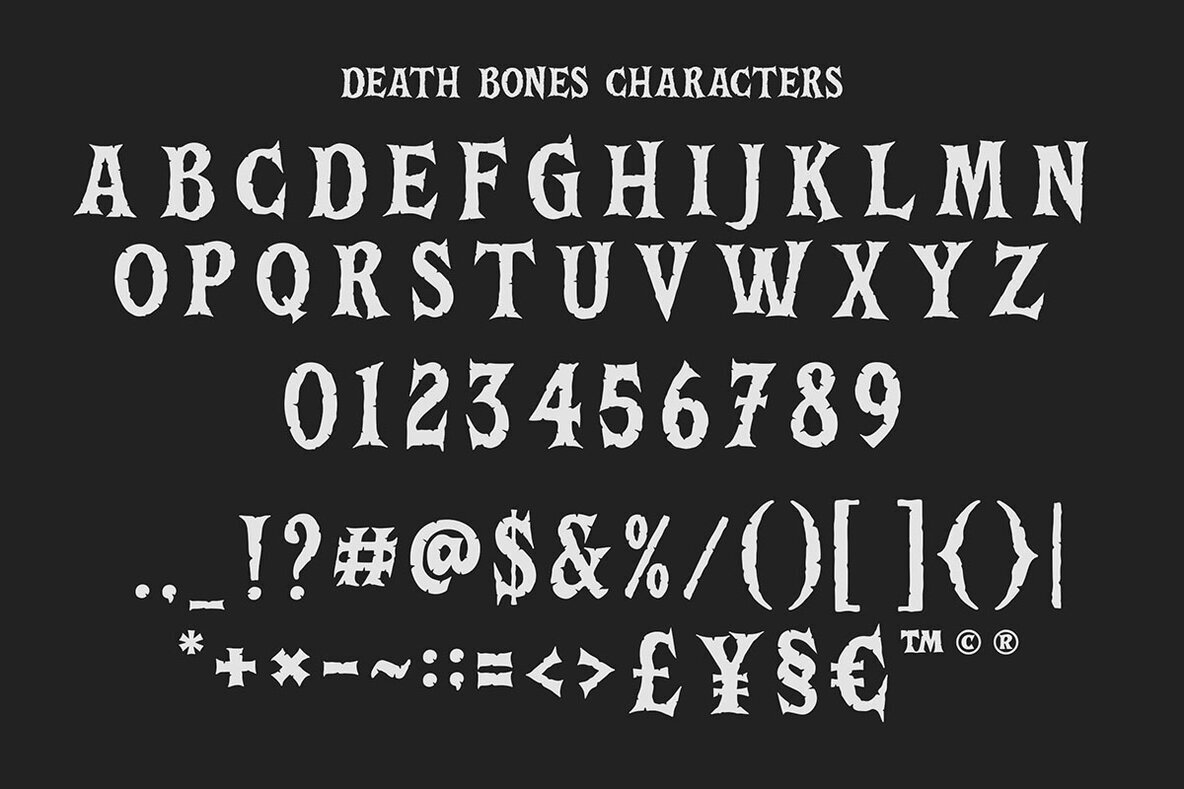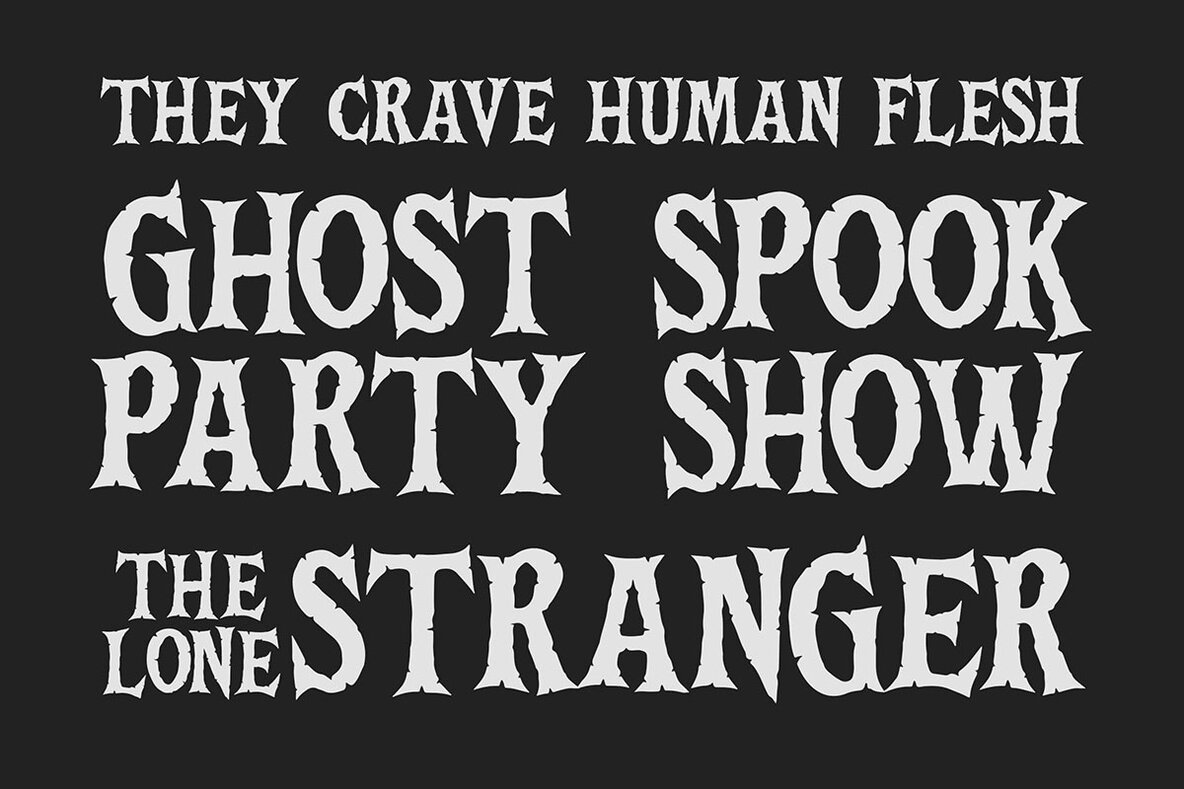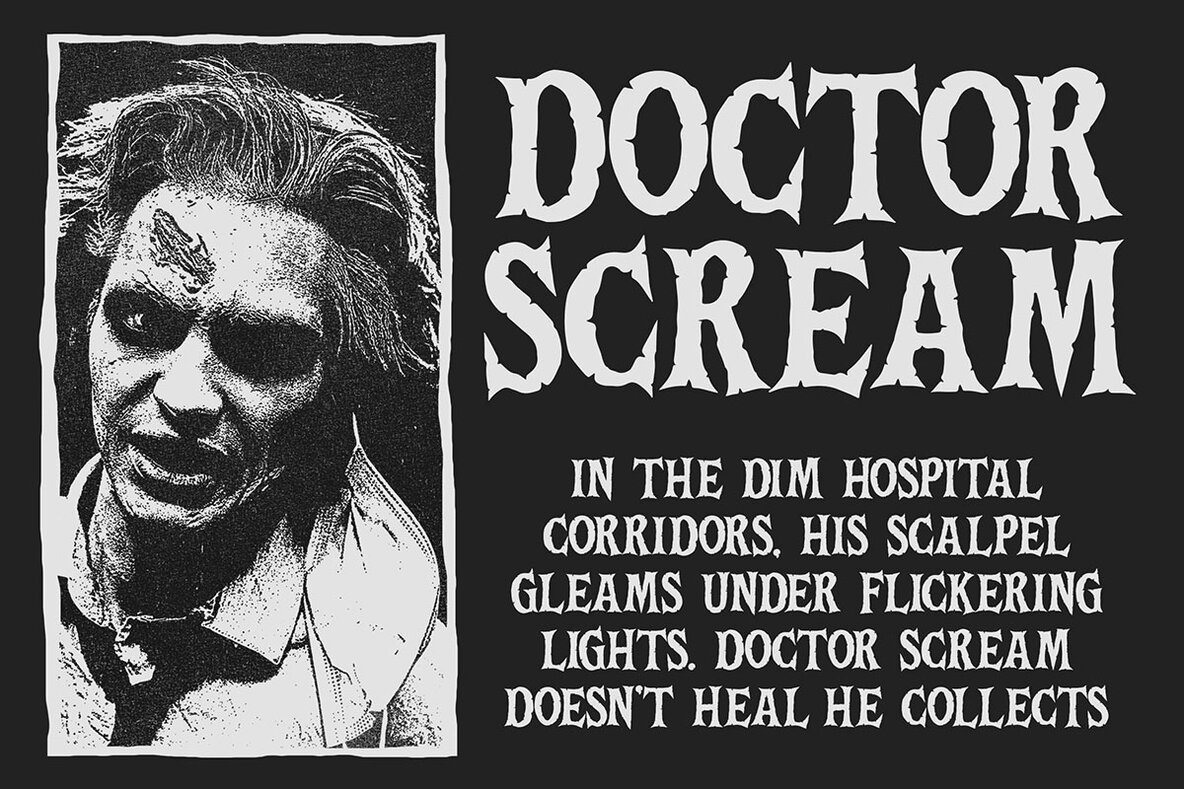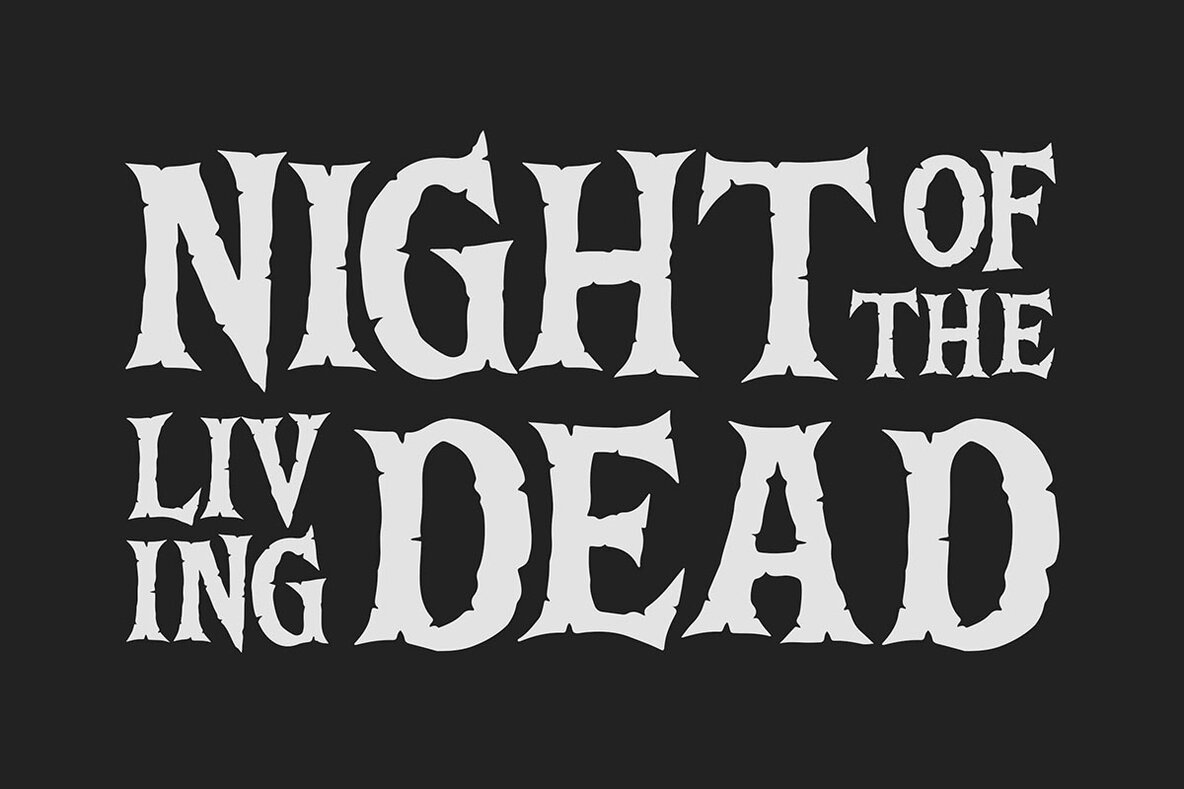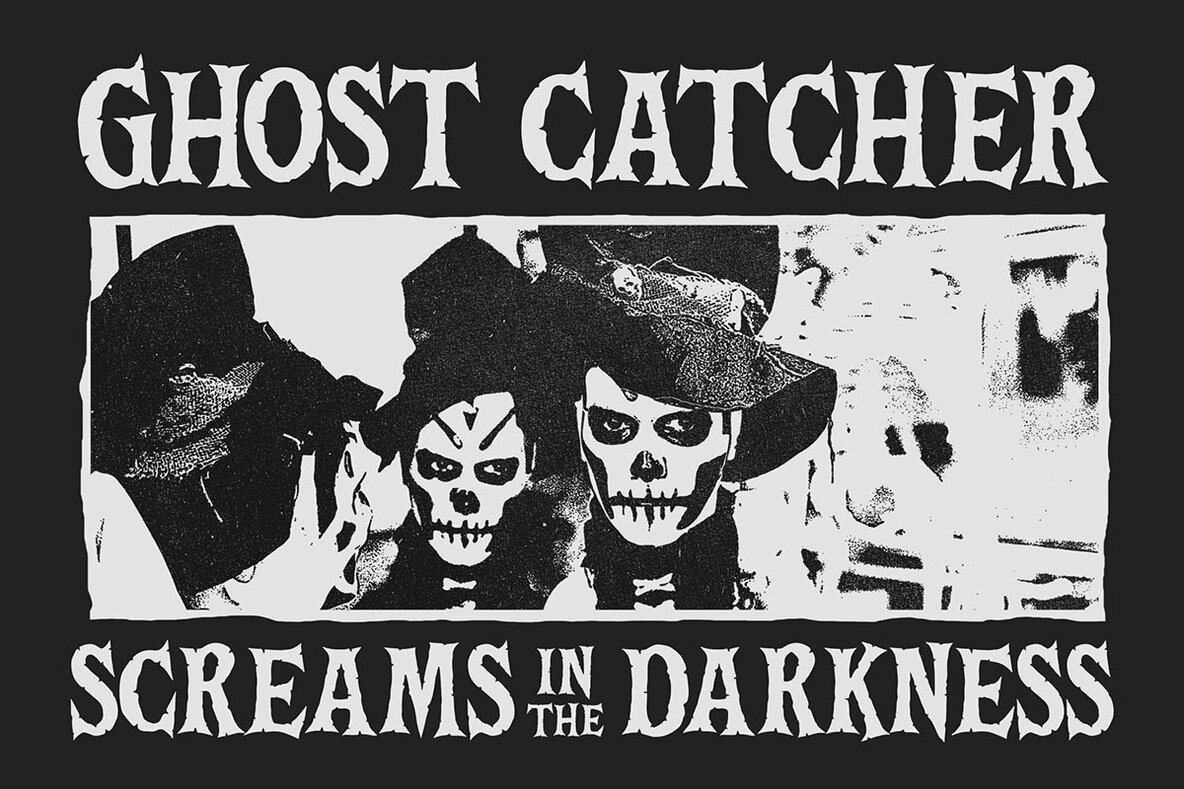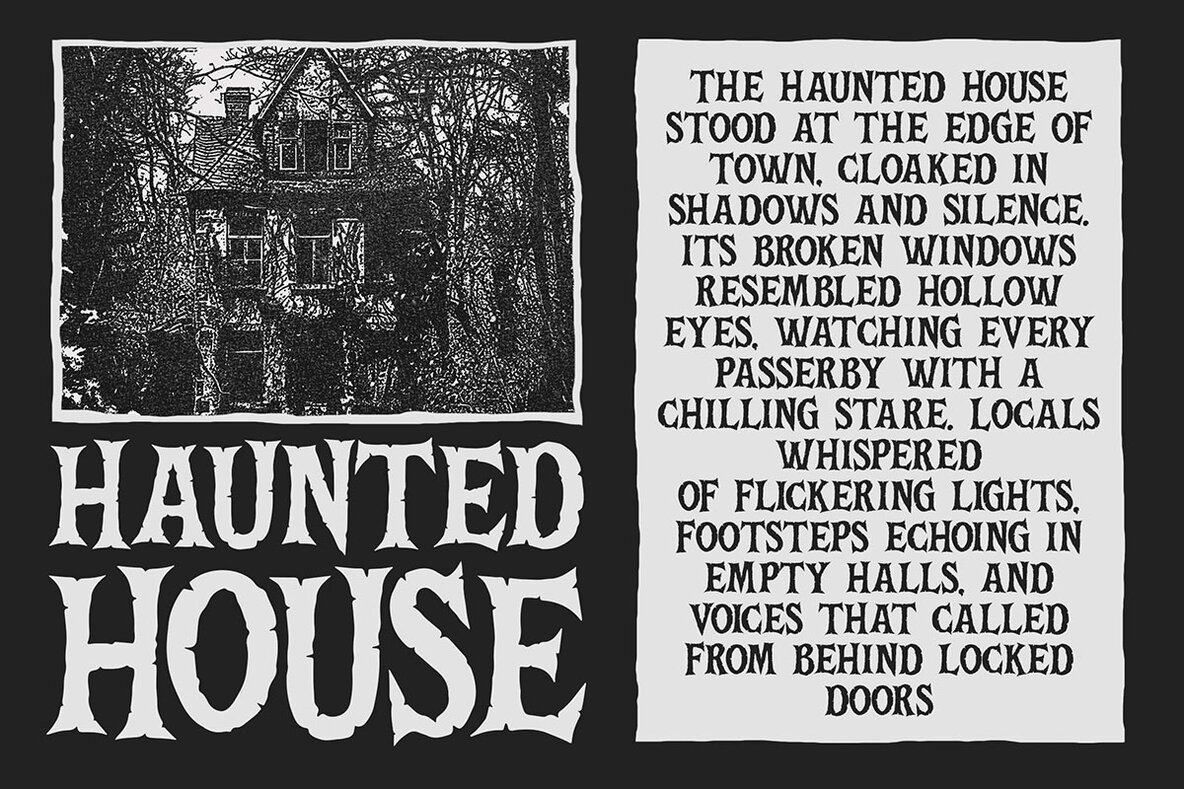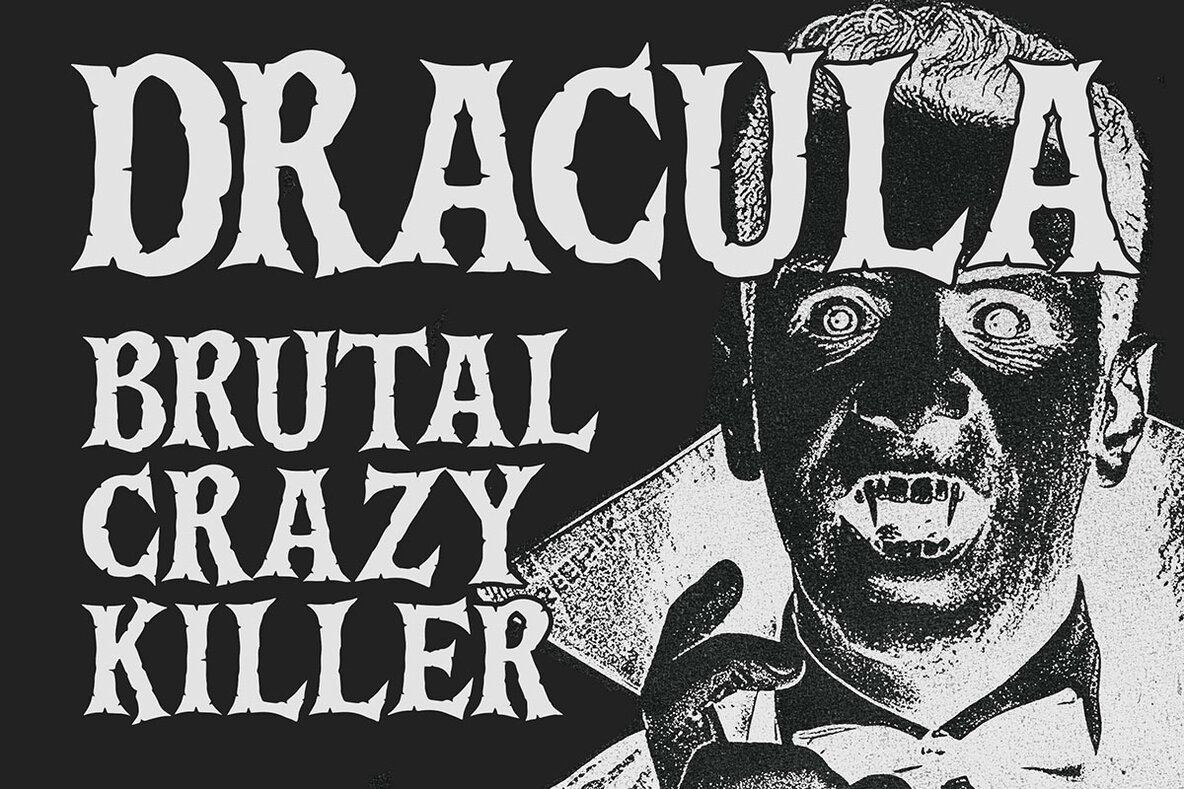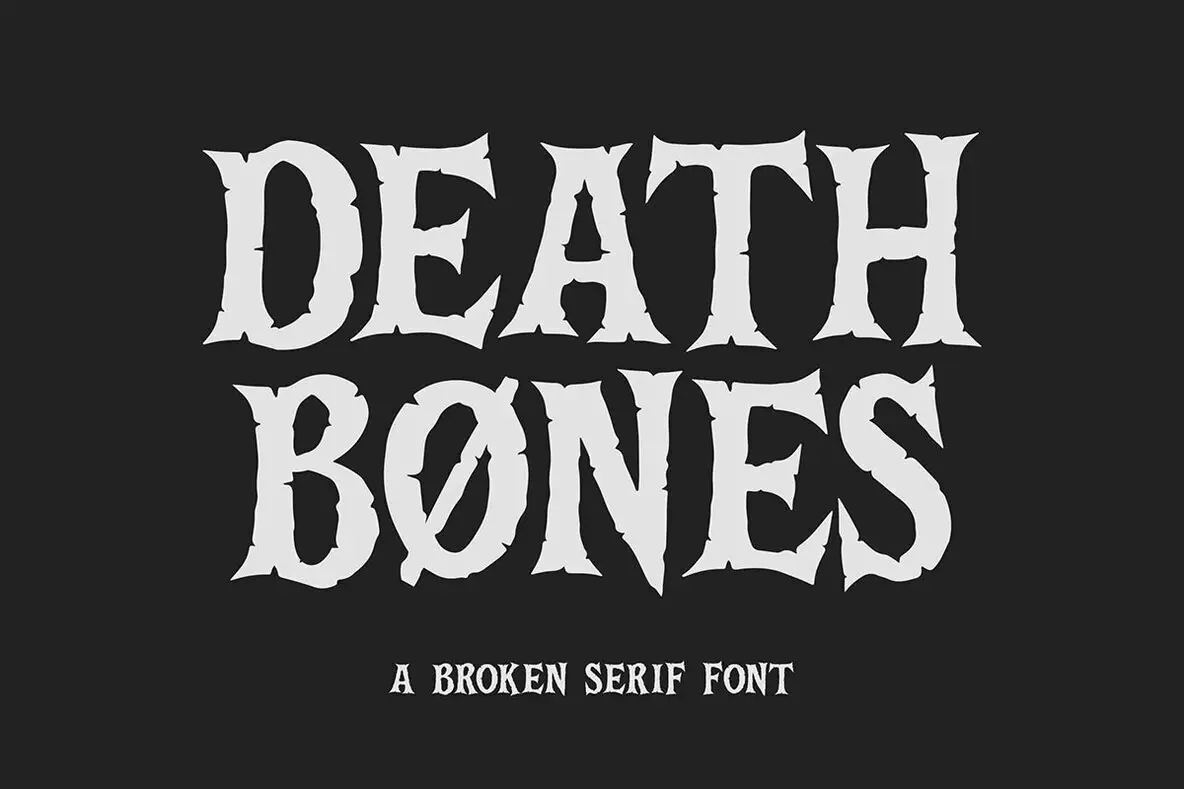
Death Bones Font
Death Bones Regular
Introducing Death Bones, the dynamic Broken Serif Font designed by Blankids Studio. Perfect for any professional branding projects, this font enhances logotypes, watermarks, posters, and more with its unique, bouncy serif style. The font includes a complete set of uppercase and lowercase letters, numerals, and punctuation, adding a creative flair to your designs.Death Bones: A Bold Broken Serif Font